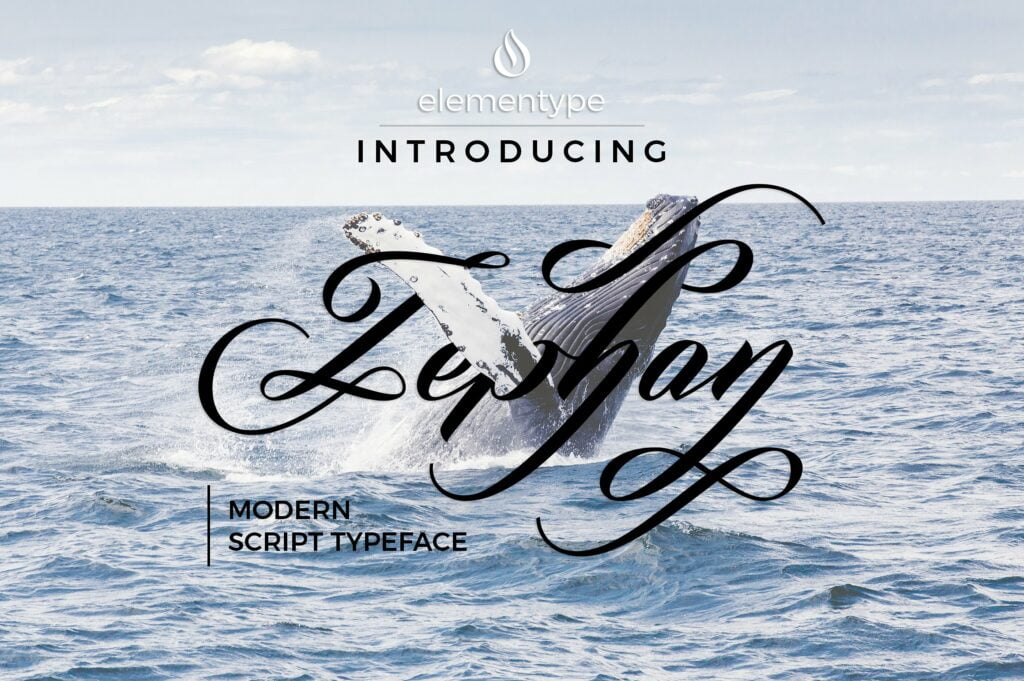
Zephan Font
Introducing the new script font. Zephan Script Font designed by Elementype. Zephan, font script to make your text look beautiful. Ideal for your branding, logo, header, poster, apparel, packaging, business cards, etc.